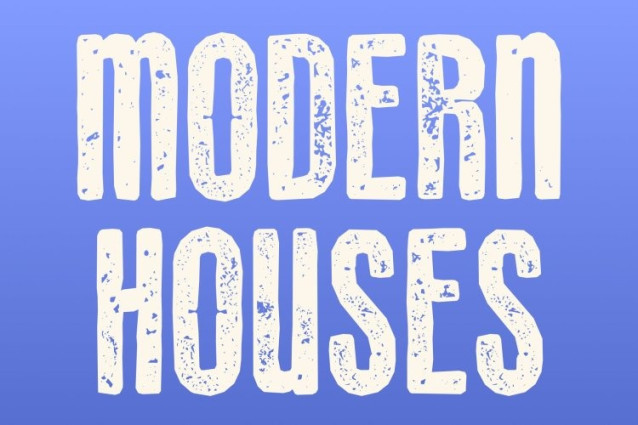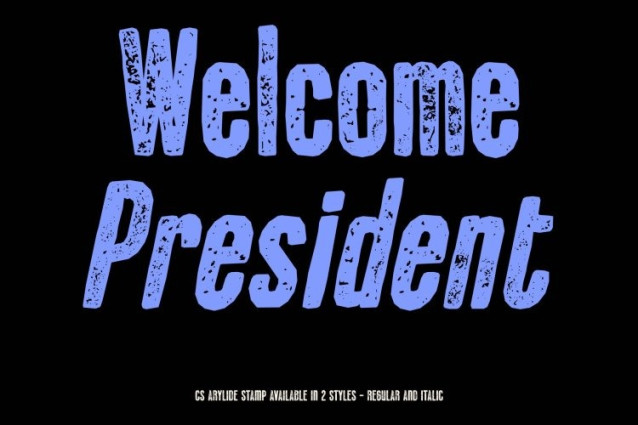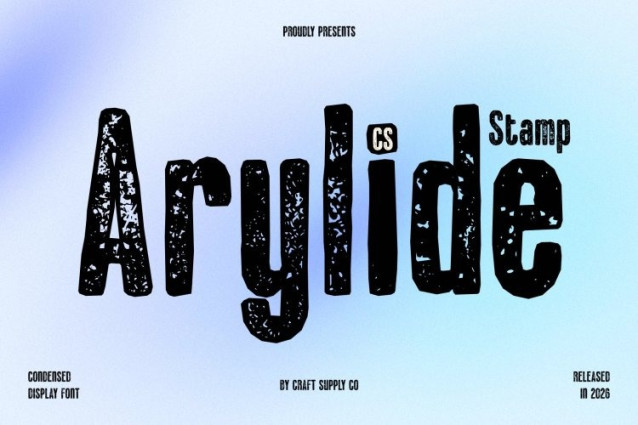
CS Arylide Stamp Font
CS Arylide Stamp Font – This font enhances its contemporary sans-serif structure with a subtle stamped texture that adds depth and tactile character. The sharp precision and smooth rounded curves remain crisp and highly legible, while gentle ink variations and lightly distressed edges introduce a refined, handcrafted nuance. The condensed form stays compact and space-efficient, now enriched with added visual warmth.
Inktrap Clarity with Organic Dimension
The defining inktrap details those subtle indentations that improve readability gain extra presence through the stamped effect. These precision cuts feel more pronounced and dynamic, blending technical functionality with artistic texture. The result is a typeface that maintains exceptional clarity at small sizes while offering distinctive personality in larger display settings.
Professional Yet Approachable Aesthetic
The balance between sharp structure and rounded softness is further elevated by the textured finish. This font feels polished and modern, yet less mechanical and more human. This fusion makes it adaptable for both corporate environments and contemporary creative branding.
Ideal for Branding, UI, and Space-Efficient Design
Perfect for logos, digital interfaces, editorial layouts, advertisements, and compact branding systems, performs beautifully across print and screen. Its combination of inktrap precision, condensed efficiency, and stamped depth ensures a clean, modern presence with a subtly expressive edge.